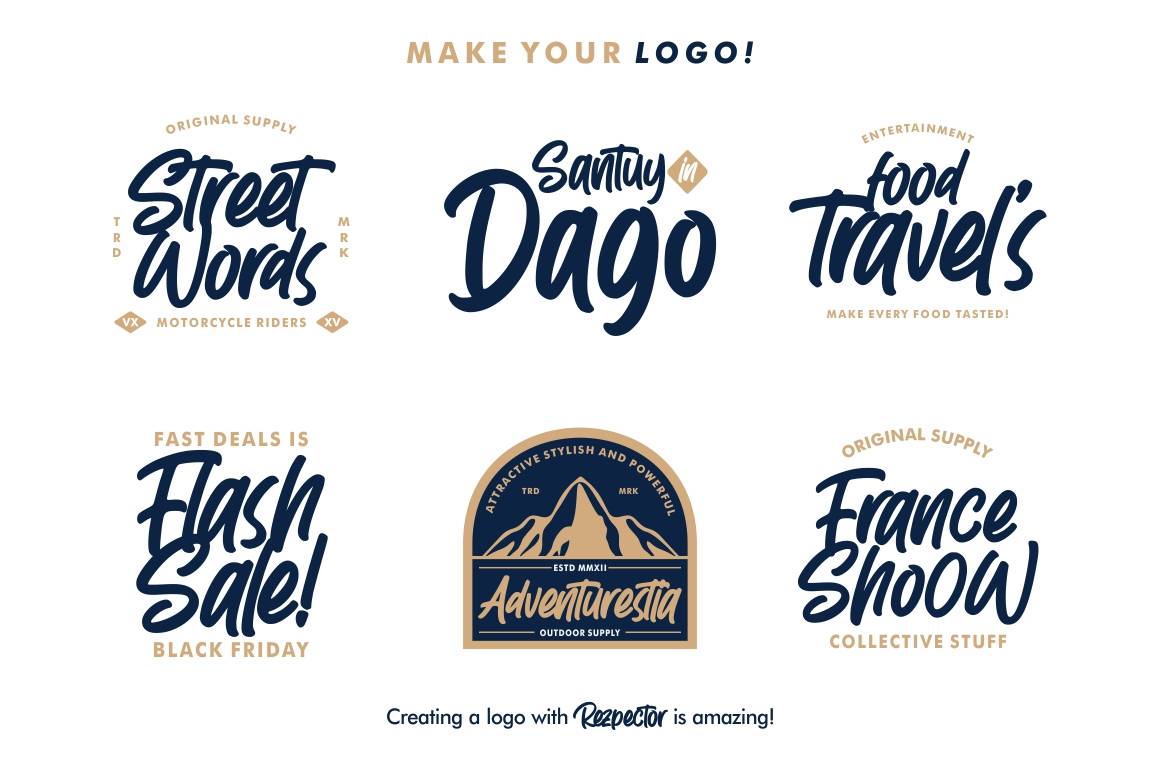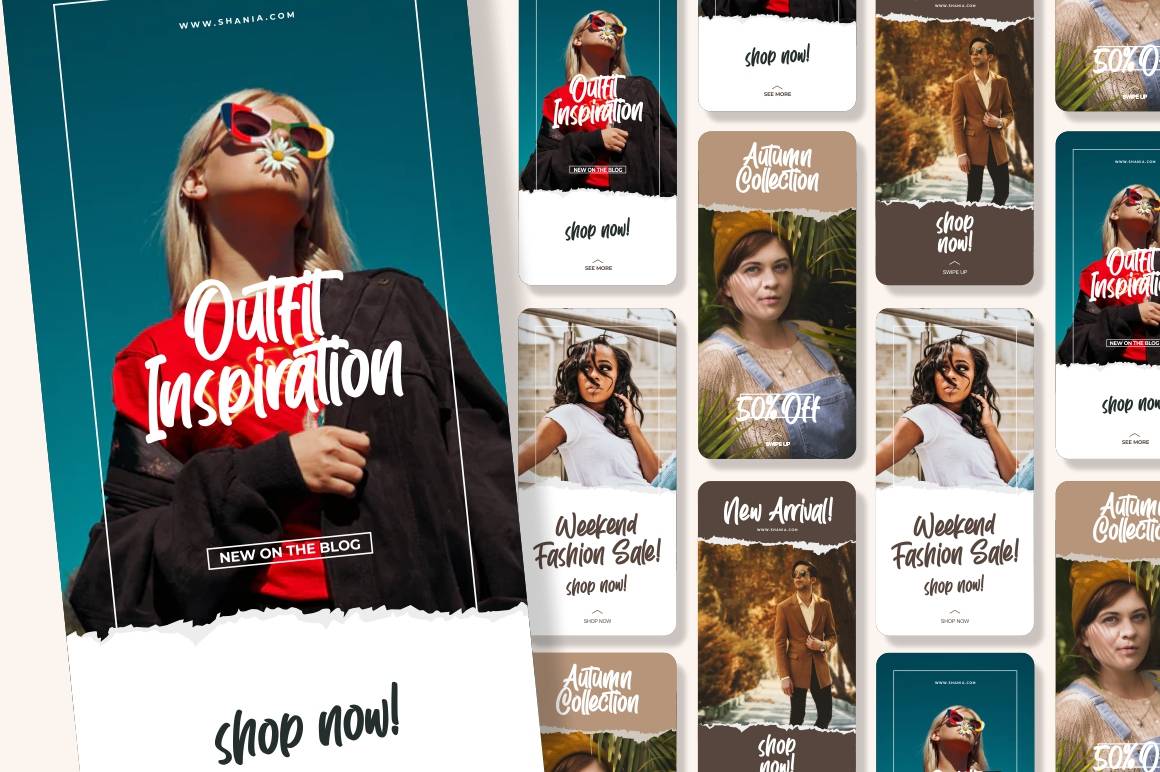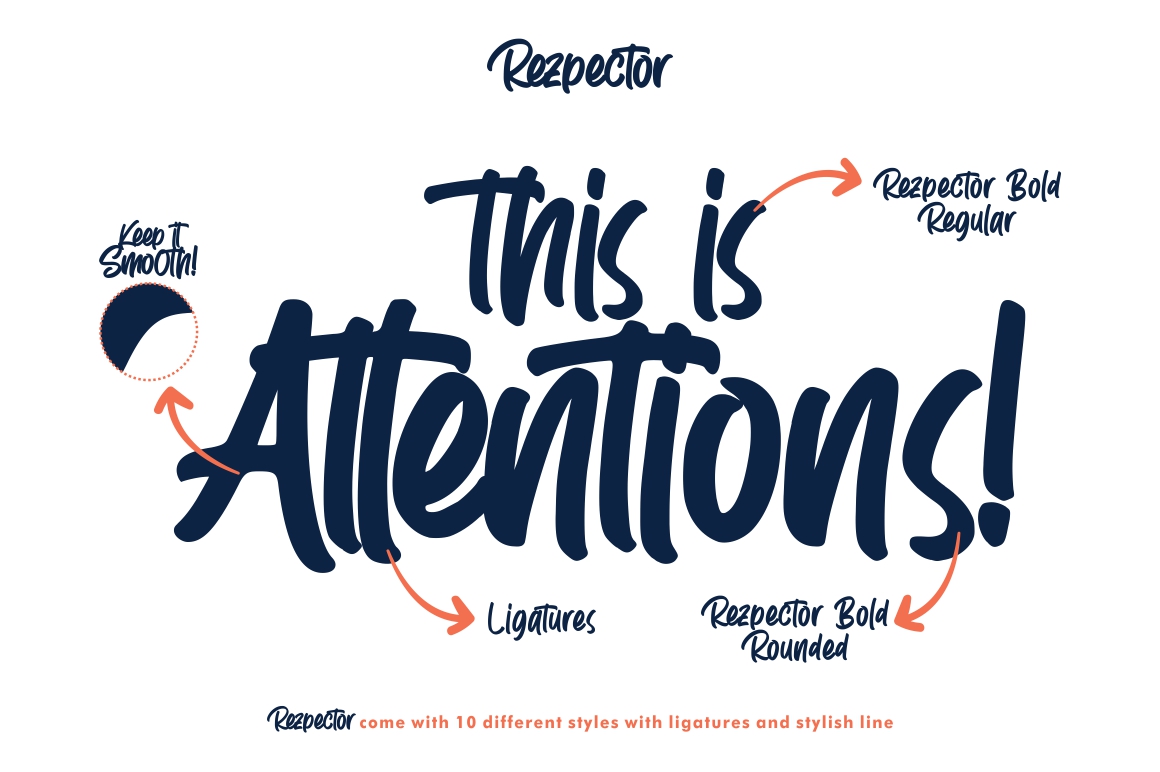
Rezpector is a lively and casual script font with a hand-drawn feel that combines playful energy with clear readability. Its moderate stroke contrast and slightly condensed letterforms make it ideal for creative branding, packaging, and informal headlines where personality and approachability are key. This font works well to convey warmth and friendliness while maintaining a modern and dynamic look.
Rezpector Font
About Rezpector Font
| Font family | Rezpector Font |